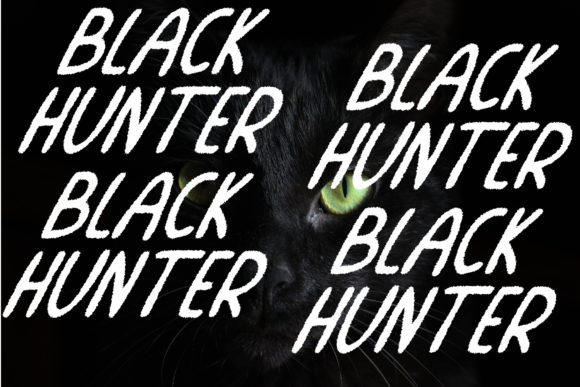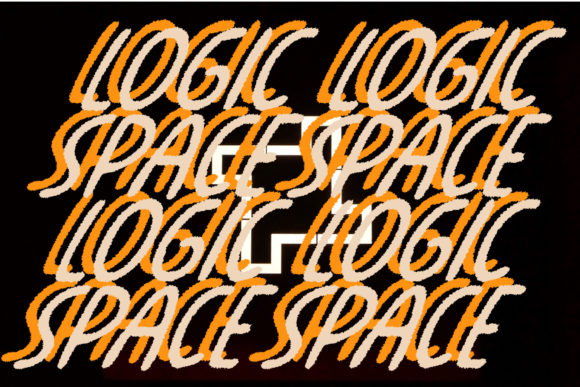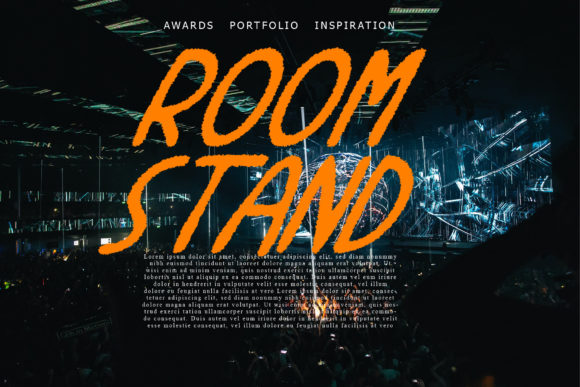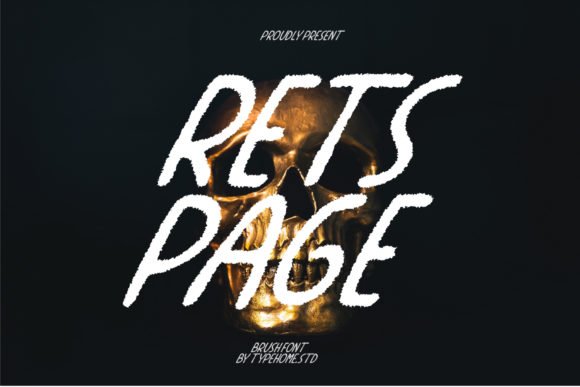
Introduction to Retspage Font
Retspage is a cool looking brushed display font.
Whatever the topic, this font will be a wonderful asset to your font library, as it has the potential to enhance any creation .
Key Features of Retspage Font
Why Choose Retspage Font?
Retspage Font offers exceptional quality and versatility, making it a valuable addition to your design toolkit. Whether you’re creating for personal projects or commercial use, Retspage Font delivers professional results.